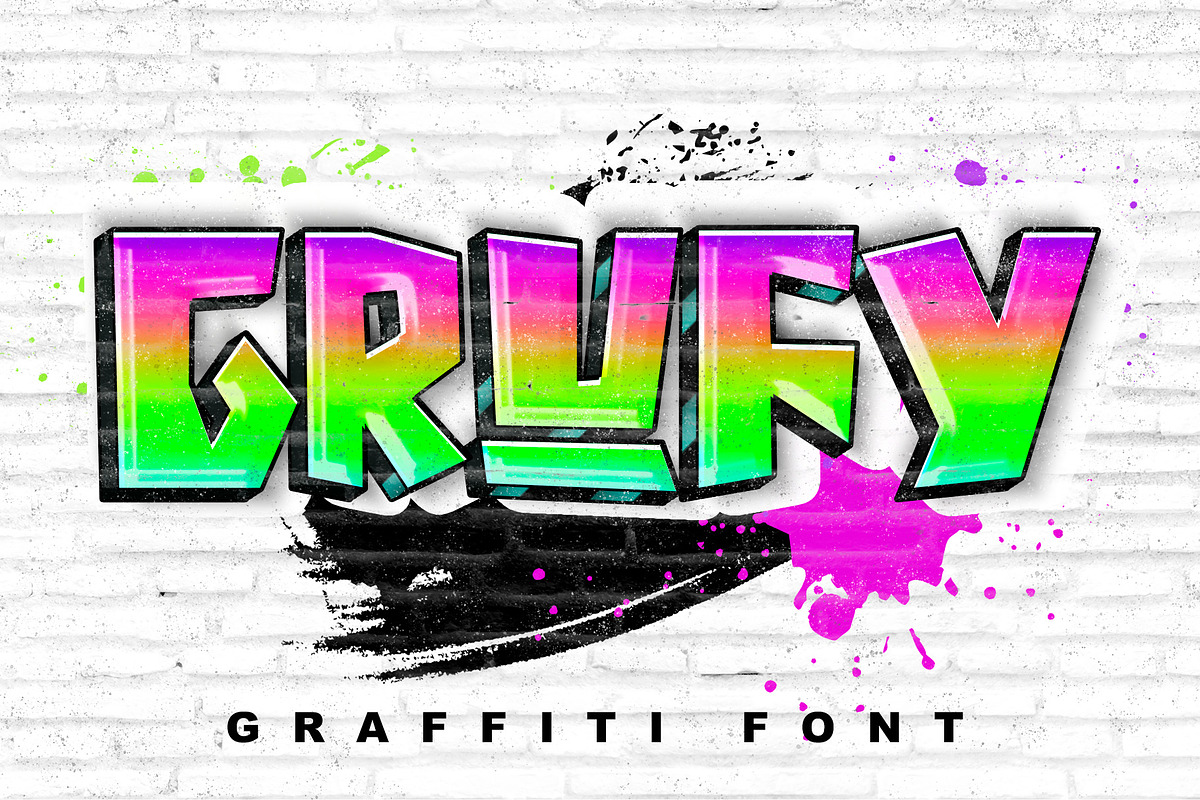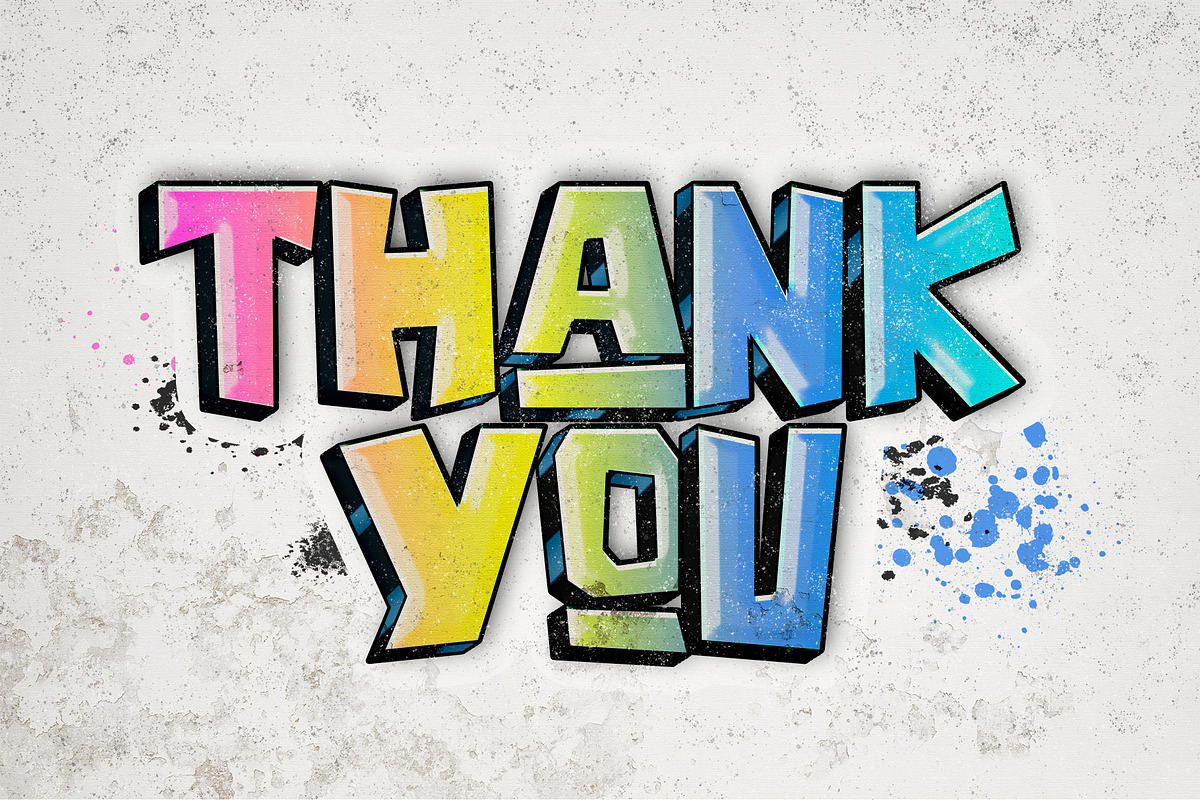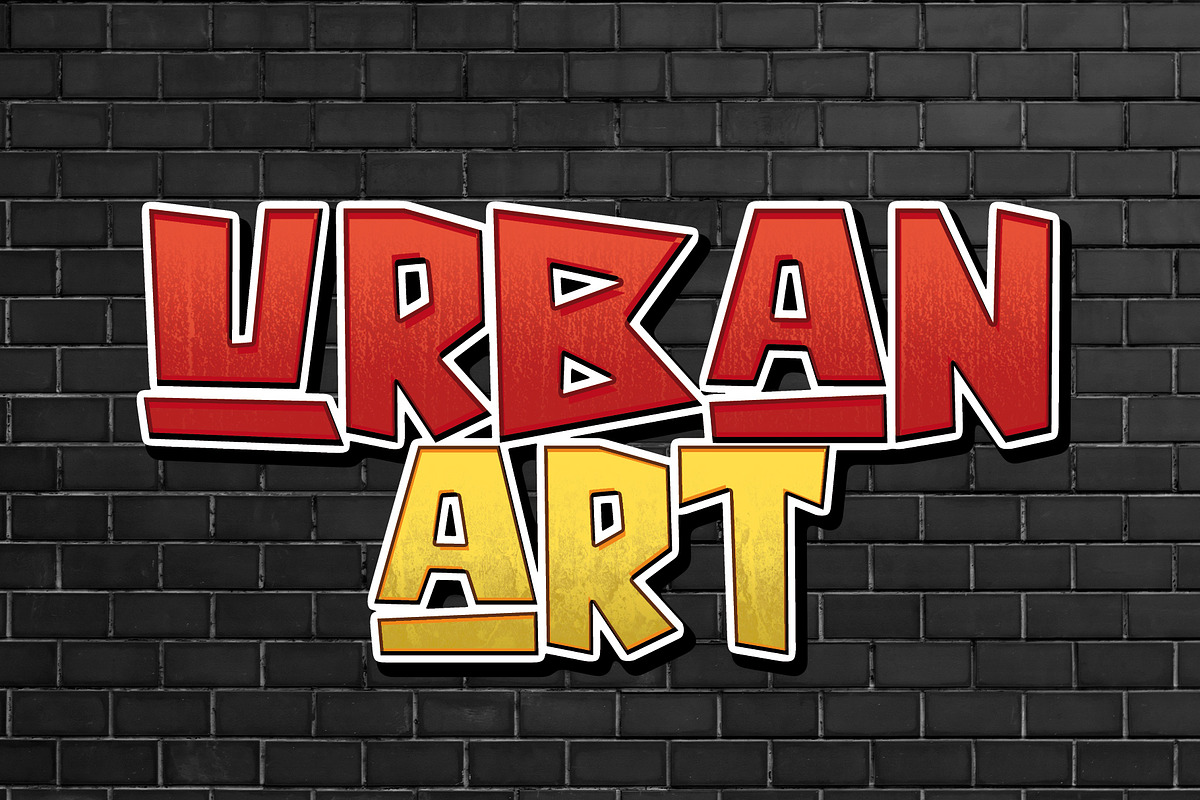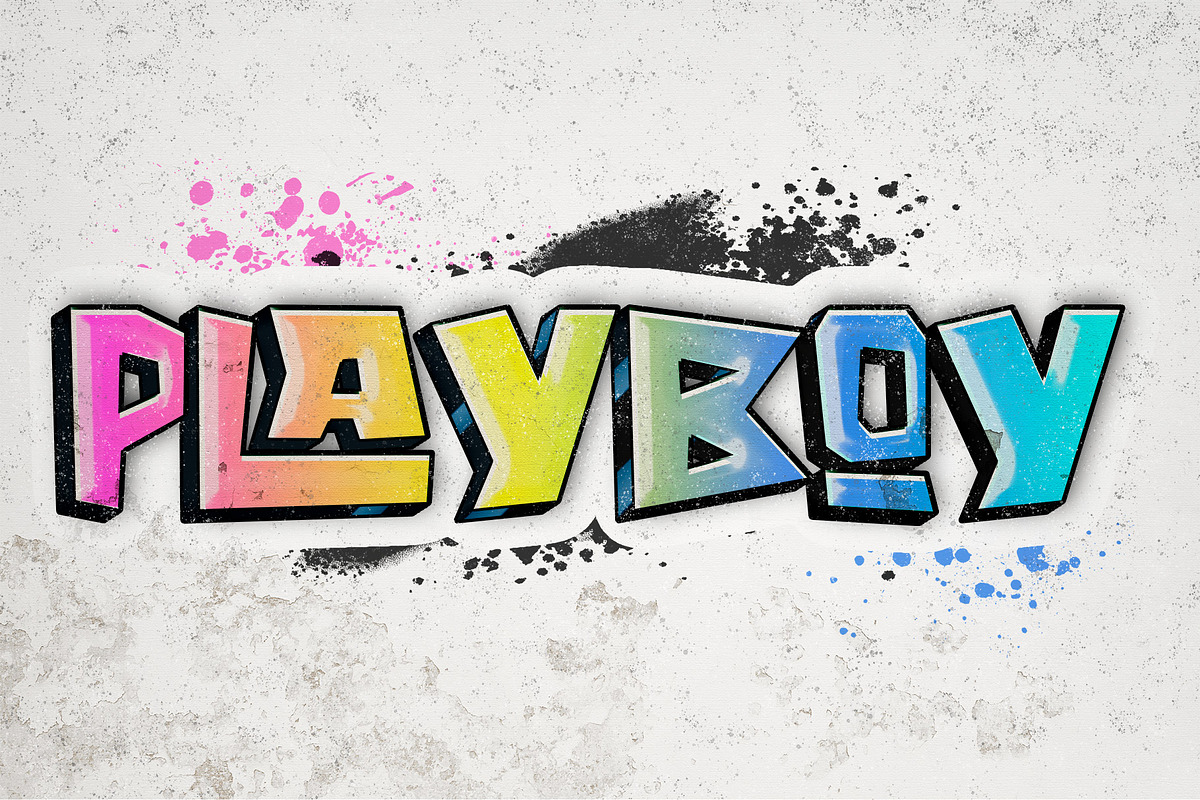
Grufy
Grufy is an awesome bold and fun display font that will look stunning on any poster flyer or print. It will put a modern twist on any design project with its urban charm. Use this font for your designs and explore its endless possibilities.
- Support multilingual; ä ö ü Ä Ö Ü ß ¿ ¡
- Uppercase letters